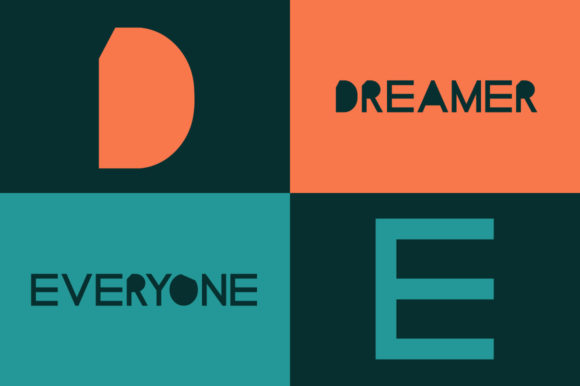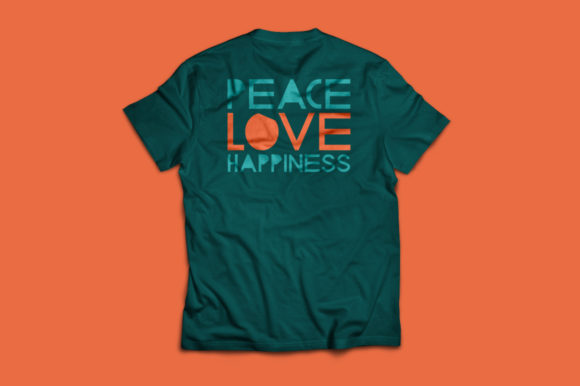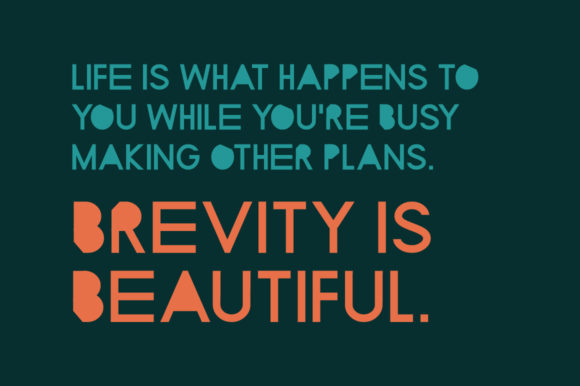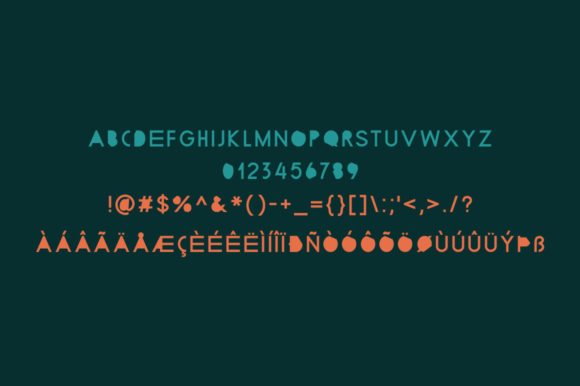
Introducing Beecdor Additional Font: Elevate Your Designs with Modern Flair
In the world of design, fonts play a crucial role in conveying messages, evoking emotions, and creating lasting impressions. For designers, crafters, and DIY enthusiasts, finding the perfect font can be a daunting task. However, with the introduction of Beecdor Additional Font, the search is over. This brand new modern display font is designed to take your designs to the next level, making it an essential tool for anyone looking to add a touch of sophistication and style to their work.
What is Beecdor Additional Font?
Beecdor Additional Font is a modern display font that boasts a unique and stylish aesthetic. Its sleek lines, elegant curves, and contemporary feel make it an ideal choice for a wide range of design applications. Whether you’re working on a logo, stationery, t-shirt, paper, or print design, this font is sure to impress. Its versatility extends to website headers, image sliders, and more, making it a valuable addition to any designer’s toolkit.
Key Features of Beecdor Additional Font
- Modern Design: Beecdor Additional Font features a modern design that is both sleek and sophisticated.
- Versatility: Its versatility makes it suitable for various design applications, from stationery and logos to website headers and print designs.
- Elegant Aesthetic: The font’s elegant curves and lines add a touch of style to any design.
- Easy to Read: Despite its modern and stylized appearance, Beecdor Additional Font remains easy to read, making it perfect for body text and headlines.
Use Cases for Beecdor Additional Font
The possibilities are endless with Beecdor Additional Font. Here are some use cases to get you started:
- Stationery: Elevate your business cards, letterheads, and envelopes with a touch of modern elegance.
- Logos: Create a lasting impression with a logo that stands out from the crowd.
- T-Shirts and Merchandise: Add a stylish touch to your apparel and merchandise designs.
- Papers and Print Designs: Enhance your brochures, flyers, and posters with a modern and sophisticated font.
- Website Headers and Image Sliders: Make a statement with your website’s header and image slider text.
Benefits of Using Beecdor Additional Font
By incorporating Beecdor Additional Font into your designs, you can:
- Enhance Visual Appeal: Add a touch of modern style to your designs.
- Increase Readability: Ensure your message is conveyed clearly and effectively.
- Stand Out from the Crowd: Differentiate your designs from others with a unique and stylish font.
- Streamline Your Workflow: With a versatile font that can be used across various design applications, you can save time and effort.
| Font Name | Beecdor Additional Font |
| Author | Spanking Fonts |
Beecdor Additional Font is a game-changer for designers, crafters, and DIY enthusiasts. Its modern design, versatility, and elegant aesthetic make it an essential tool for taking your designs to the next level. Whether you’re working on a personal project or a client’s brief, this font is sure to impress. So why wait? Discover the possibilities with Beecdor Additional Font and elevate your designs with modern flair.